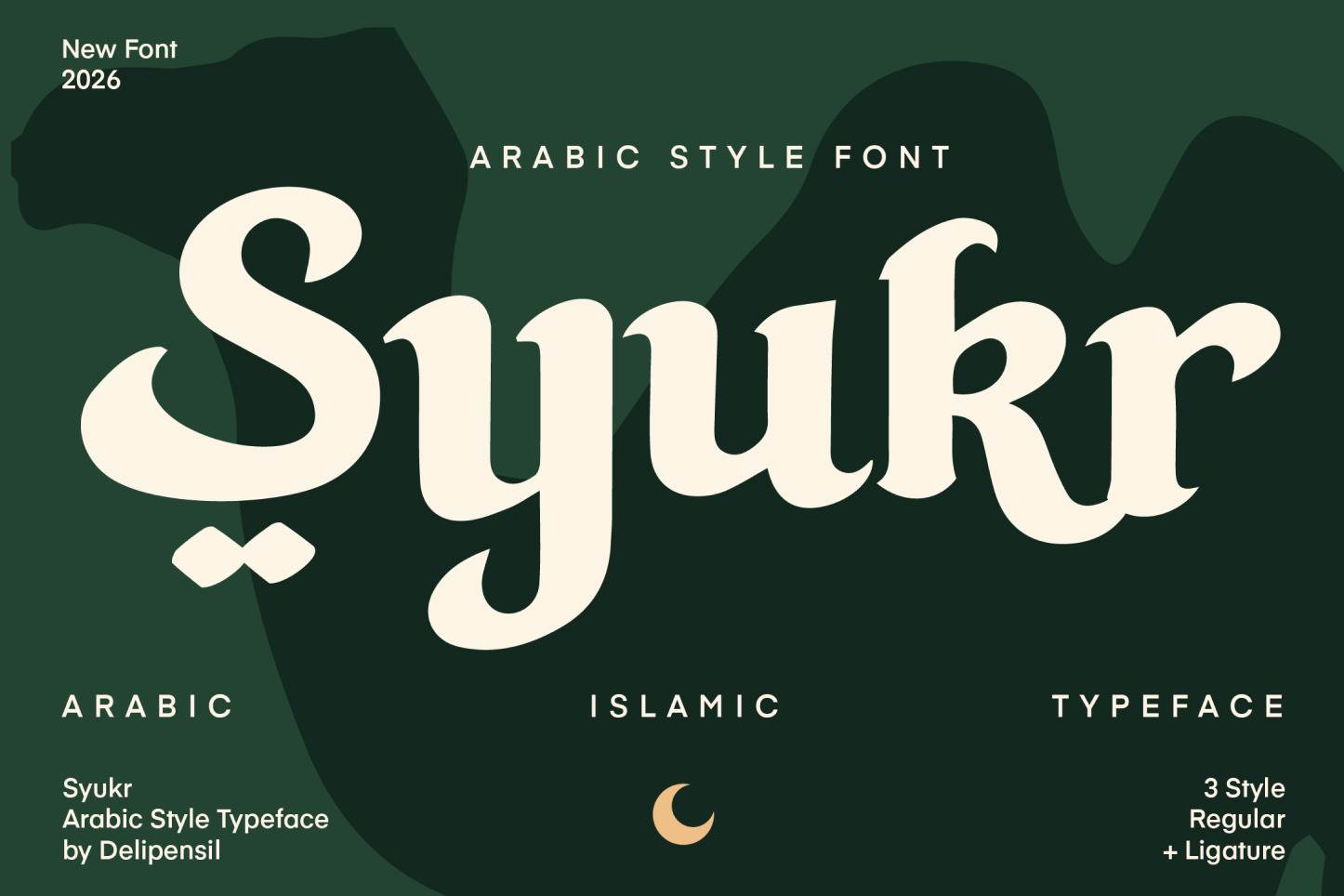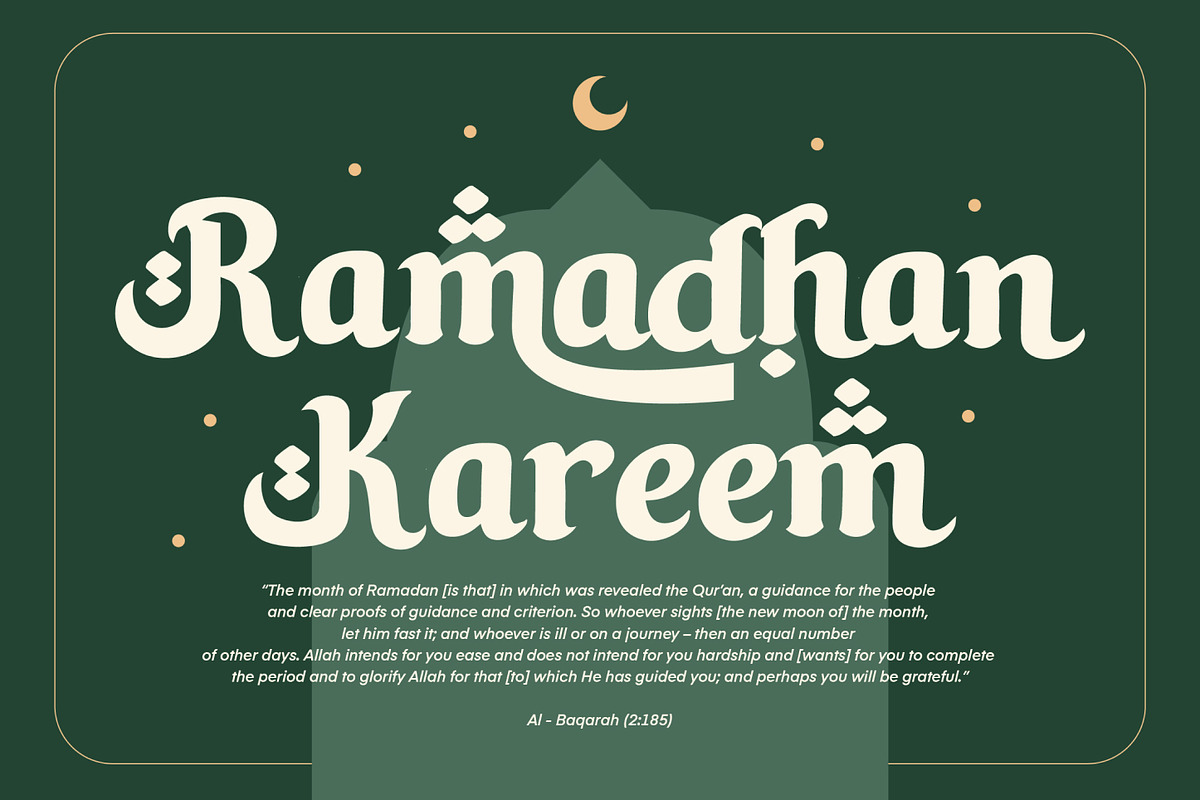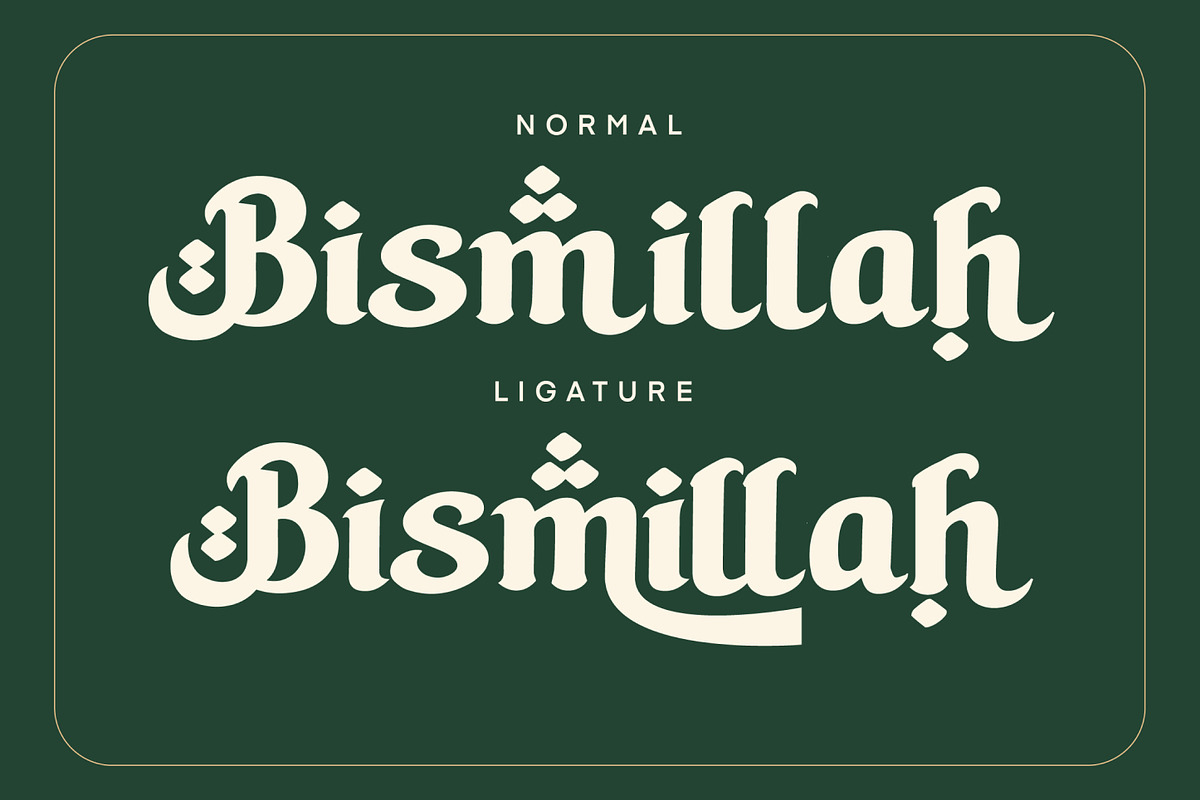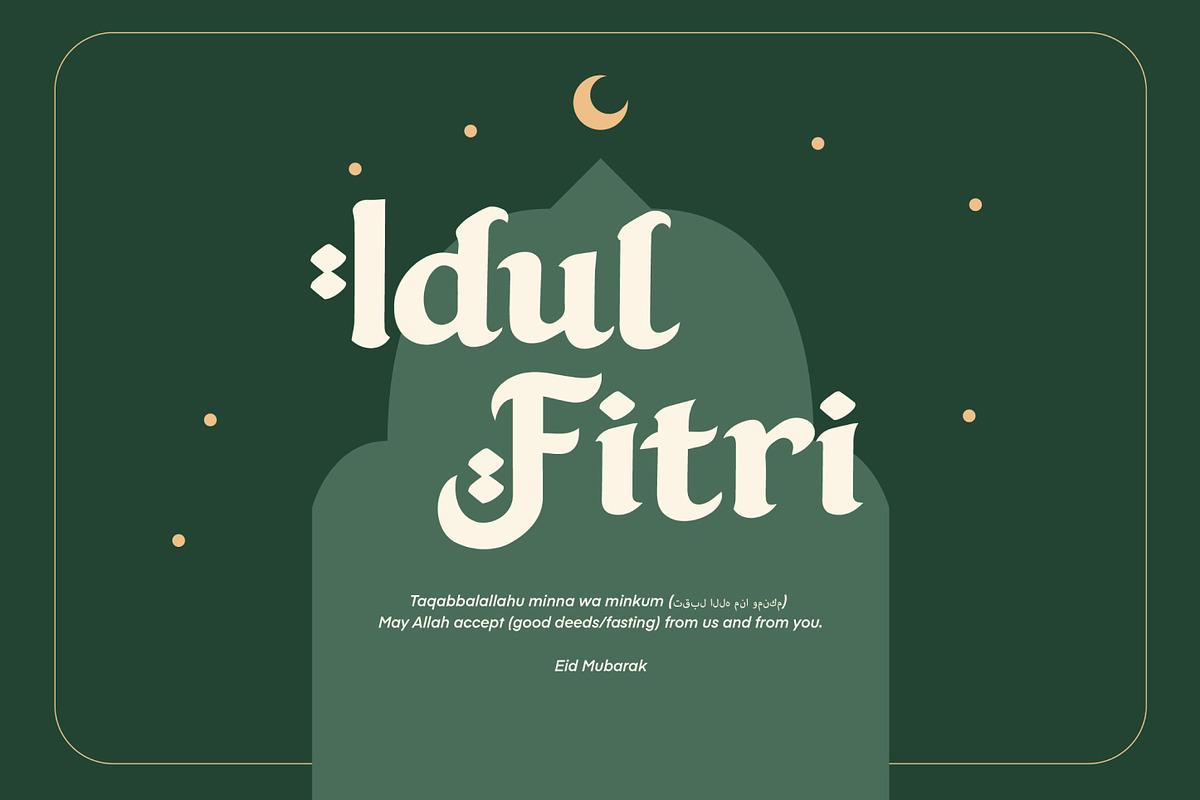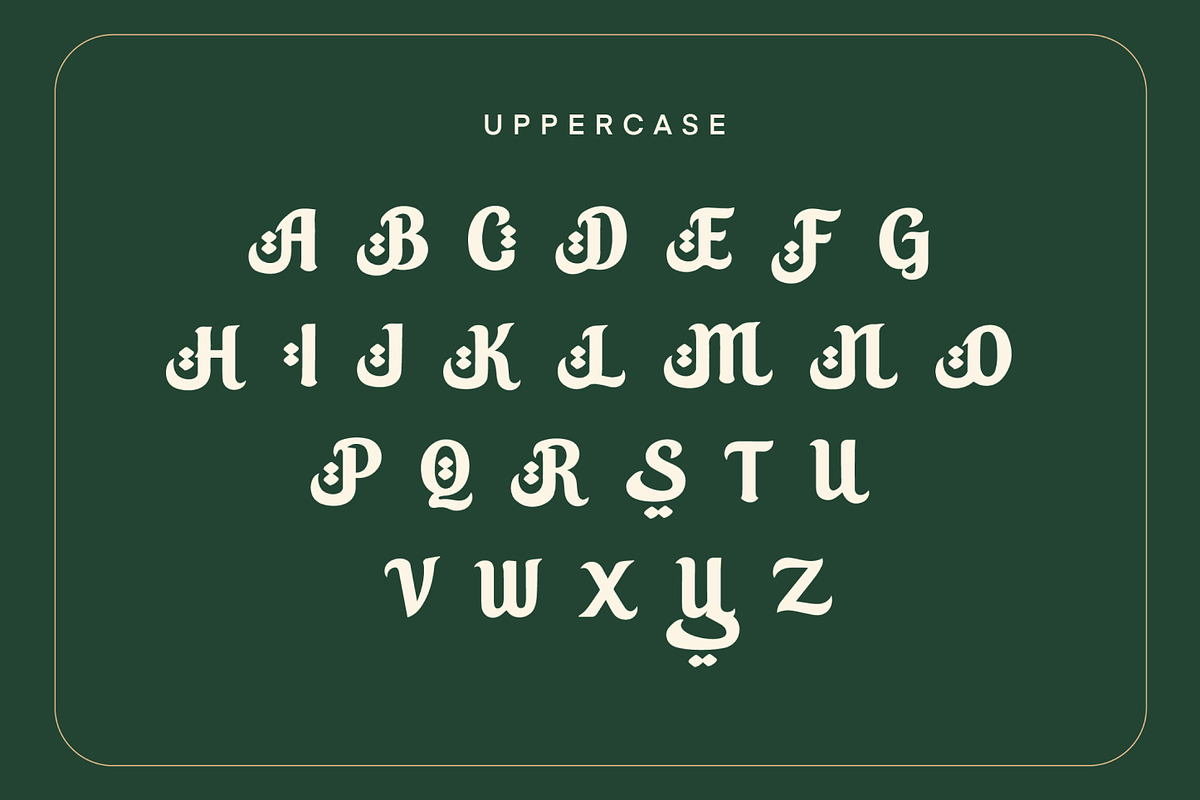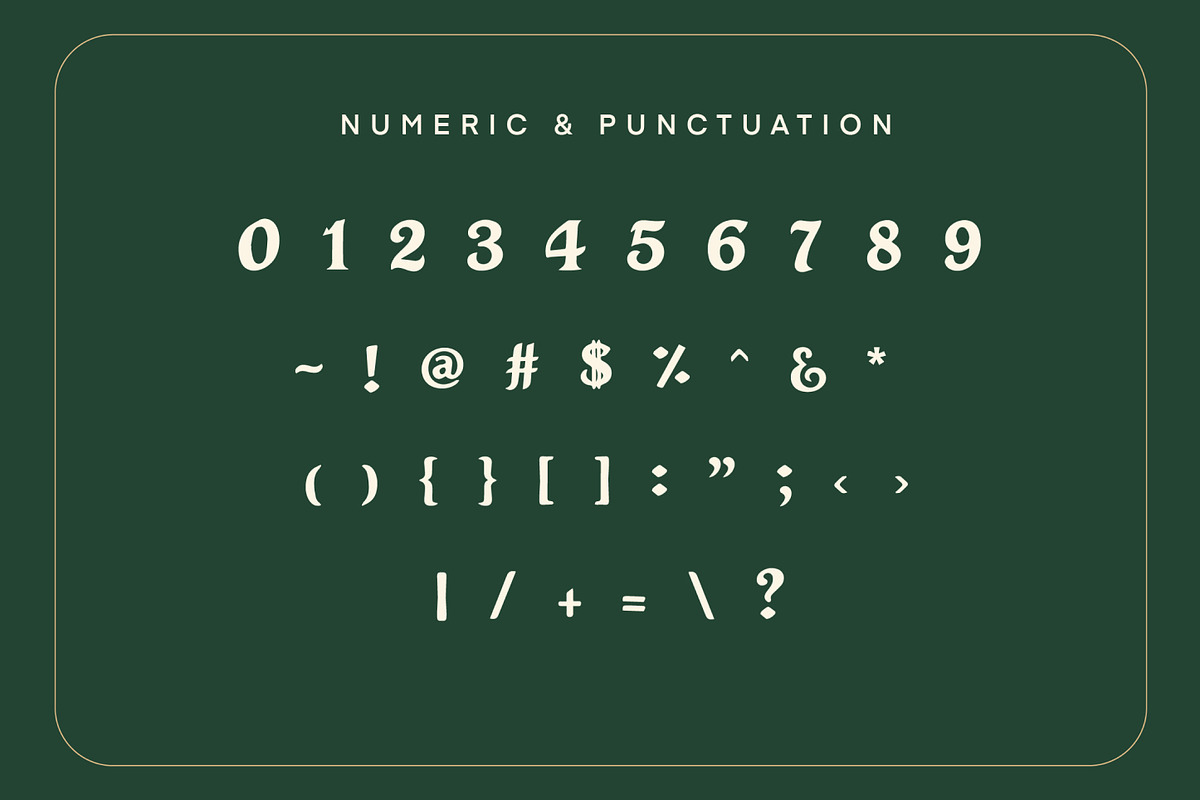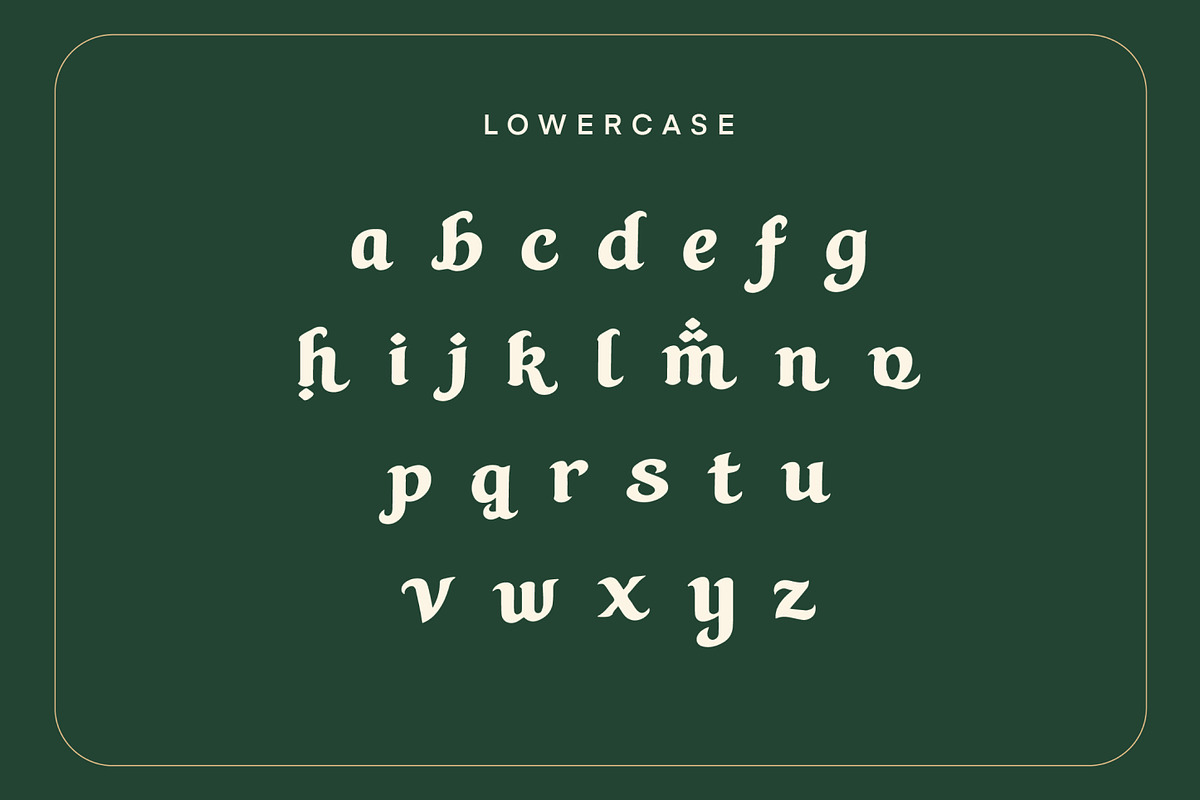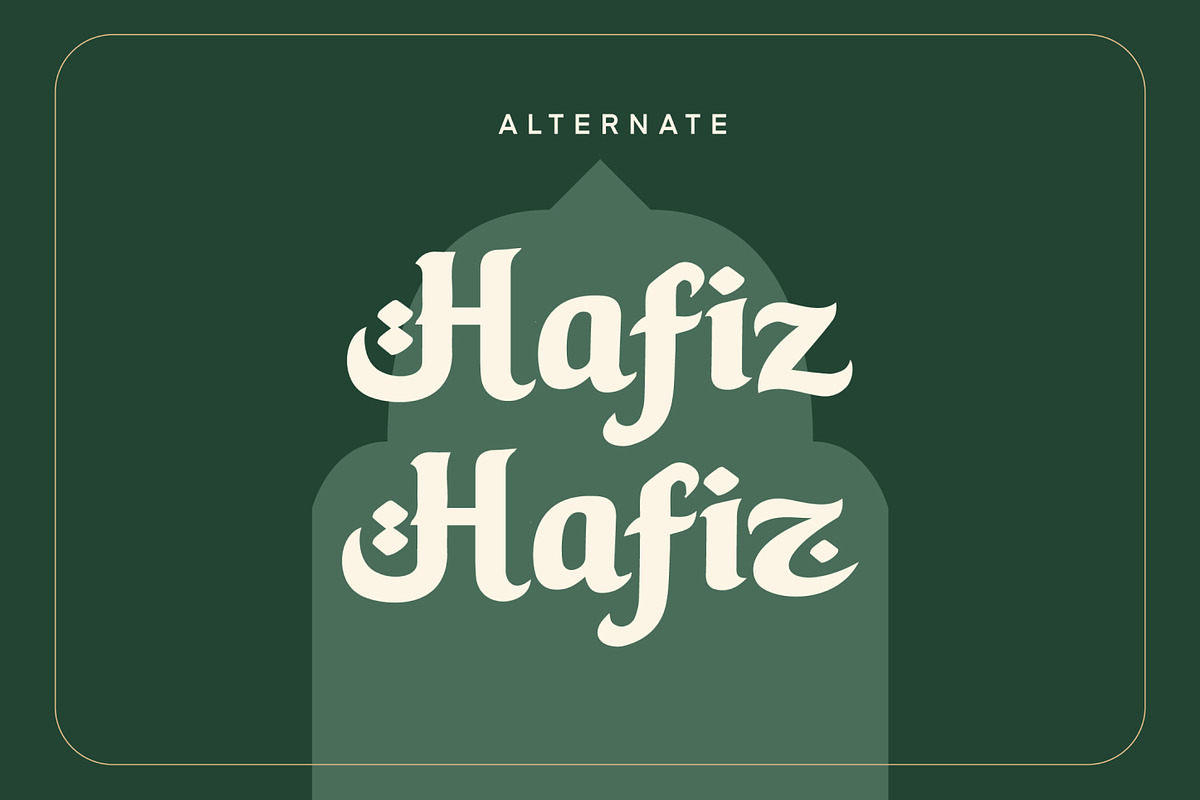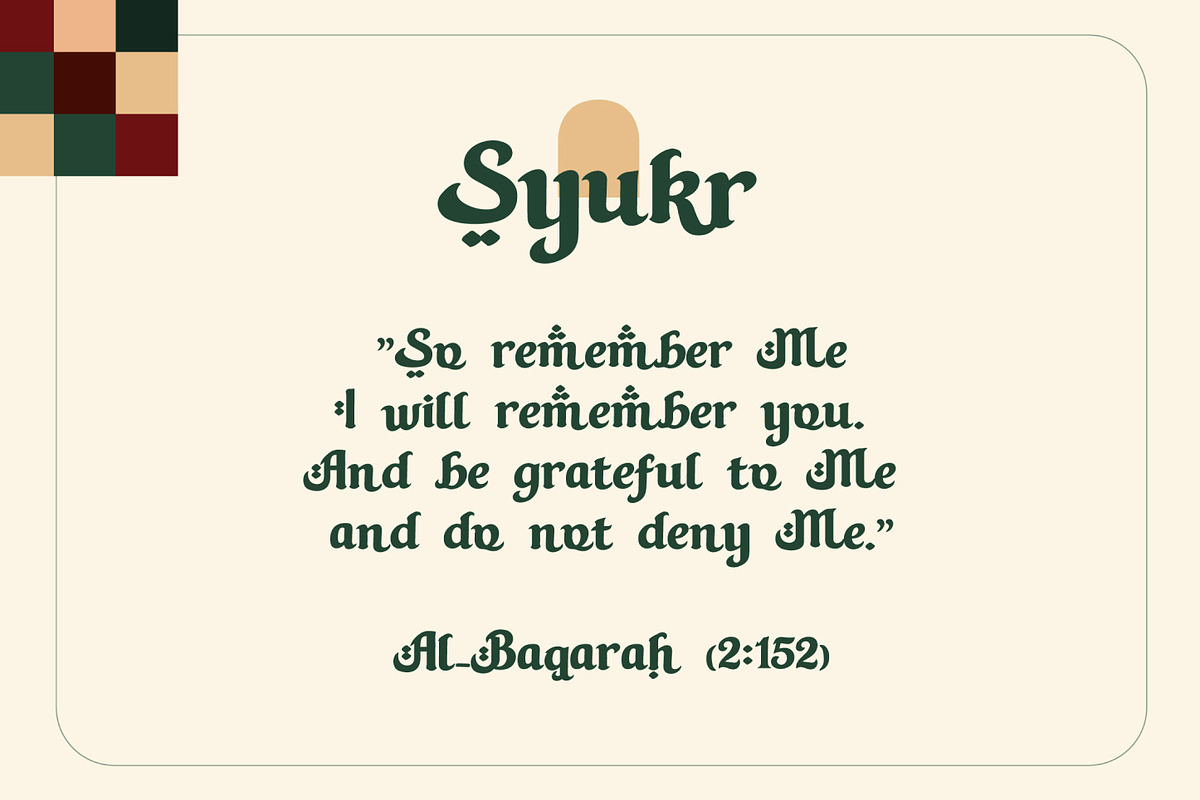
Syukr – Elegant Islamic Display Font
Bismillah Introduction new font Syukr, Syukr is a refined Islamic display font inspired by the beauty of gratitude and the spiritual atmosphere of Ramadan. The name “Syukr” means thankfulness, reflecting the warmth, faith, and elegance embodied in every letterform.
With subtle Arabic influences and graceful curves, Syukr creates a harmonious balance between tradition and modern design. It is carefully crafted to shine in headlines, logos, packaging, and decorative typography.
This font is perfect for Ramadan campaigns, Eid celebrations, halal branding, luxury packaging, wedding invitations, and social media graphics.
Ramadan designs, Eid Mubarak graphics, Islamic events, halal product branding, luxury branding, wedding invitations, posters, and social media content.